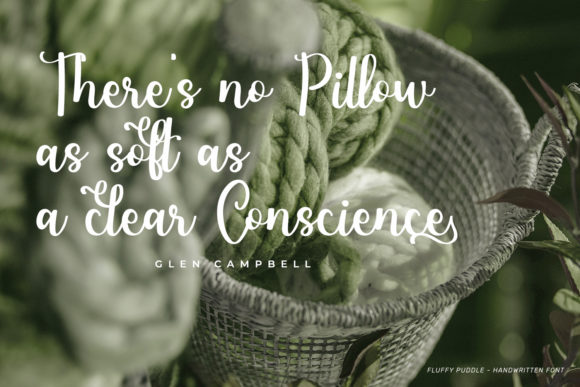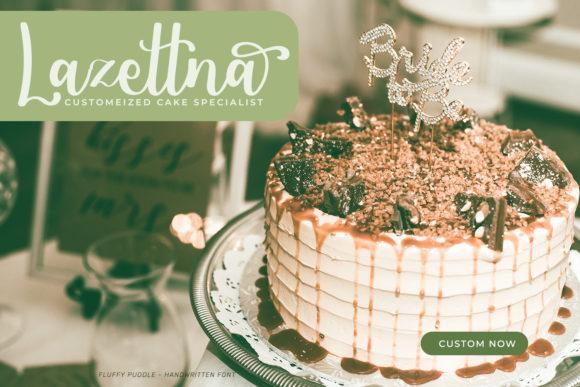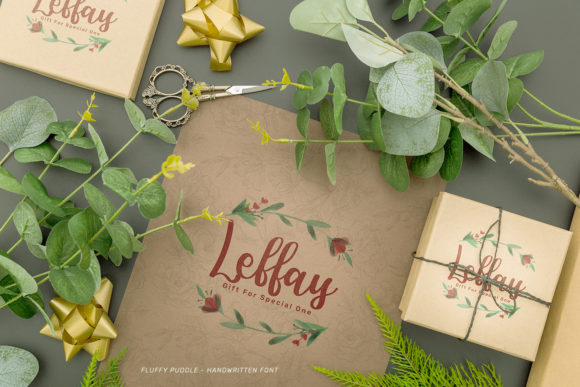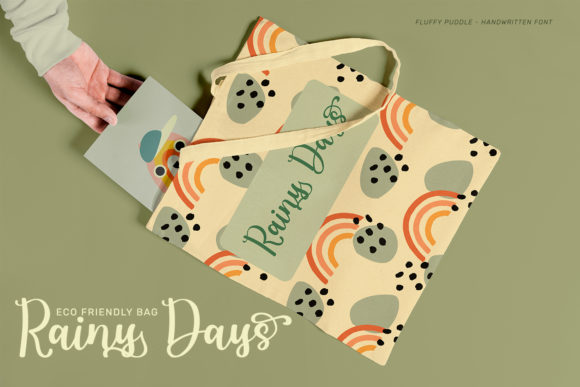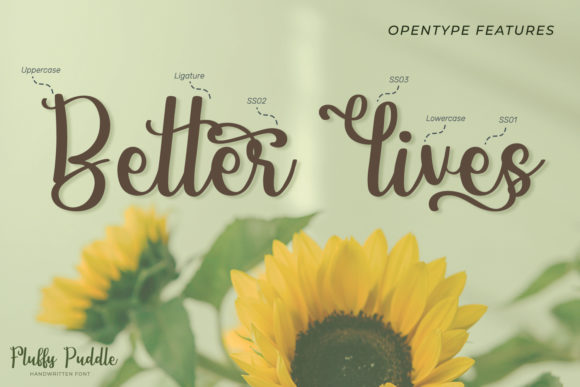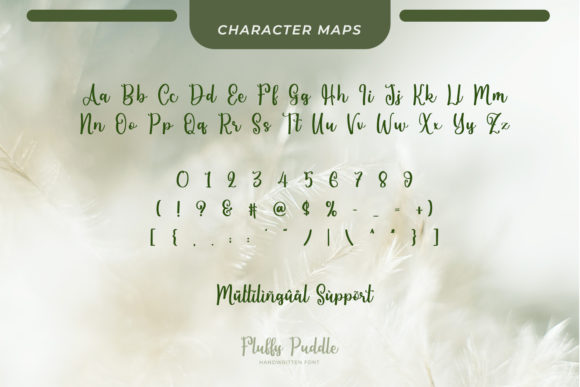
Introducing Fluffy Puddle Font: The Perfect Handwritten Addition to Your Design Projects
Are you on the hunt for a beautiful, unique, and versatile font to elevate your design projects? Look no further than Fluffy Puddle Font, a stunning handwritten font that is sure to capture the hearts of designers and crafters alike. With its balanced and varied strokes, Fluffy Puddle is the perfect addition to any project, adding a touch of elegance and sophistication.
The Beauty of Fluffy Puddle Font
Fluffy Puddle Font is a beautiful handwritten font that boasts a perfect balance of thickness and thinness. Not too thin and not too thick, this font is designed to enhance the beauty of your projects without overpowering them. Its varied strokes add a touch of whimsy and playfulness, making it perfect for a wide range of design applications, from branding and packaging to scrapbooking and journaling.
What Makes Fluffy Puddle Font So Special?
So, what sets Fluffy Puddle Font apart from other fonts on the market? Here are just a few reasons why this font is a cut above the rest:
- Unique and Handwritten: Fluffy Puddle Font is a one-of-a-kind, handwritten font that adds a personal touch to any project. Its unique strokes and flourishes make it stand out from more traditional fonts.
- Balanced and Varied: With its perfect balance of thick and thin strokes, Fluffy Puddle Font is both elegant and playful. Its varied strokes add visual interest and keep the reader engaged.
- Versatile: Whether you’re working on a branding project, a scrapbooking layout, or a journal page, Fluffy Puddle Font is the perfect choice. Its versatility makes it suitable for a wide range of design applications.
How to Use Fluffy Puddle Font in Your Design Projects
Ready to add Fluffy Puddle Font to your design projects? Here are a few tips to get you started:
- Pair it with Other Fonts: Fluffy Puddle Font pairs perfectly with other fonts, adding a touch of elegance and sophistication to any project. Try pairing it with a bold font for a striking contrast.
- Use it for Headings and Titles: Fluffy Puddle Font is perfect for headings and titles, adding a touch of whimsy and playfulness to any project.
- Experiment with Colors: Fluffy Puddle Font looks great in a variety of colors, from bold and bright to soft and pastel. Experiment with different colors to find the perfect look for your project.
Why Designers and Crafters Love Fluffy Puddle Font
So, why do designers and crafters love Fluffy Puddle Font? Here are just a few reasons:
- Easy to Read: Fluffy Puddle Font is easy to read, even at small sizes. Its clear and legible strokes make it perfect for body text and captions.
- Highly Versatile: Whether you’re working on a digital project or a print project, Fluffy Puddle Font is the perfect choice. Its versatility makes it suitable for a wide range of design applications.
- Unique and Creative: Fluffy Puddle Font is a unique and creative addition to any project. Its handwritten strokes add a personal touch, making it perfect for designers and crafters who want to stand out from the crowd.
In conclusion, Fluffy Puddle Font is a beautiful, unique, and versatile handwritten font that is perfect for designers and crafters alike. With its balanced and varied strokes, this font is sure to enhance the beauty of your projects, adding a touch of elegance and sophistication. Whether you’re working on a branding project, a scrapbooking layout, or a journal page, Fluffy Puddle Font is the perfect choice. So why wait? Download Fluffy Puddle Font today and take your design projects to the next level!